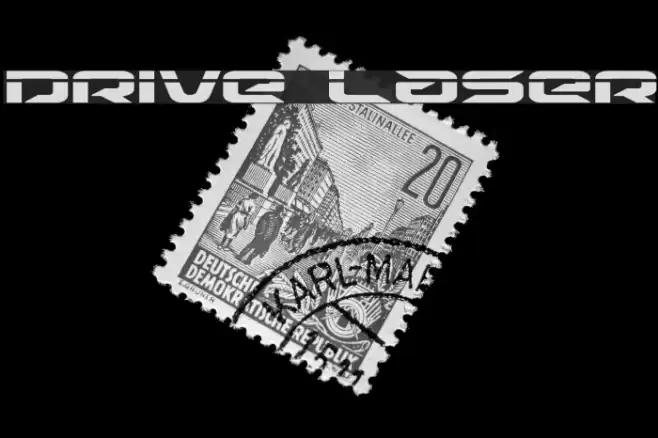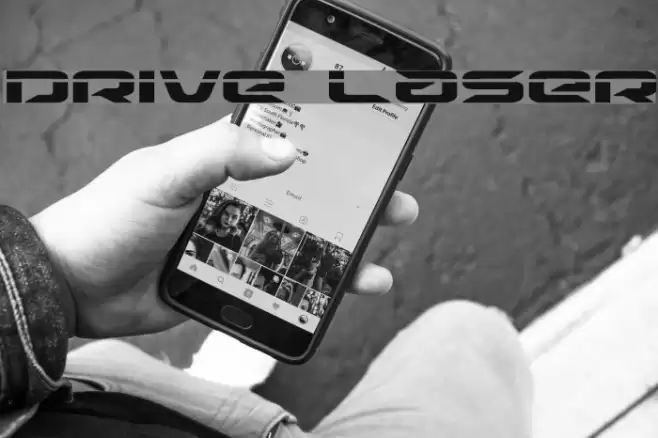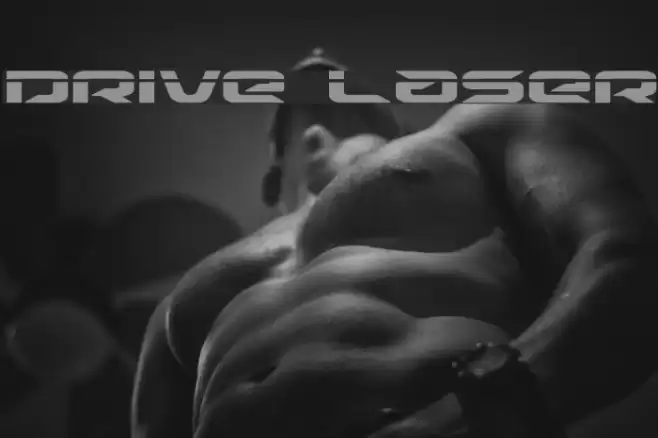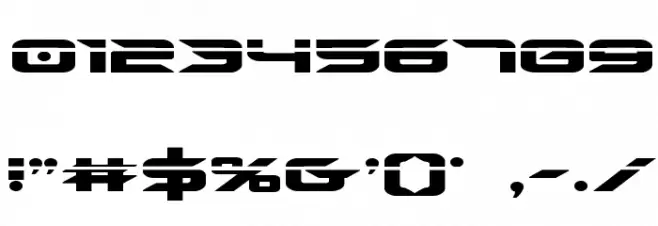
Drive Laser Font
Drive Laser Description
This font features a futuristic and angular design, characterized by sharp edges and geometric shapes. The letters are bold and have a strong presence, making them ideal for attention-grabbing headlines or titles. The uppercase and lowercase letters maintain a consistent style, with a unique cut-out effect that adds to the modern aesthetic. The numbers and special characters follow the same design principles, ensuring a cohesive look across all text elements. The font's distinct style makes it suitable for projects that require a modern, tech-inspired appearance.
A bold, futuristic font with sharp, geometric shapes and a modern aesthetic from Uncategorized fonts.
- Proposed Projects: Ideal for tech branding, video game titles, sci-fi posters, and modern advertising campaigns.